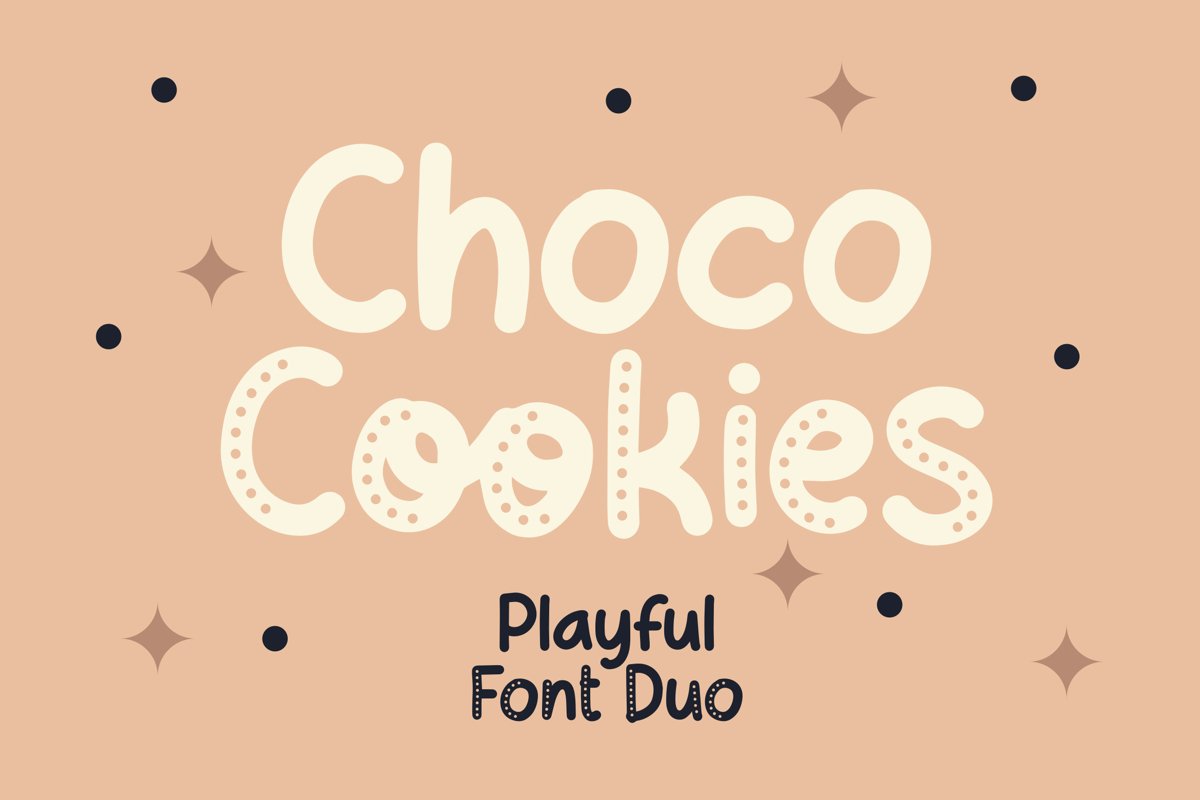
Choco Cookie - Playful Duo Font that contain lowercase, uppercase, symbol, and also support multi language. There’s a lot ligatures in this font. This Font also comes with ligatures, alternates and many more. this font suitable for fashion, branding, catalog and other design what you want.